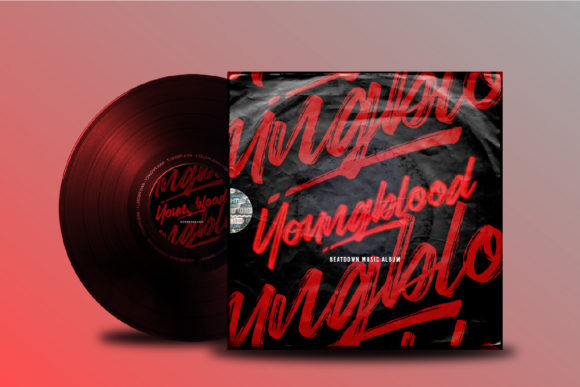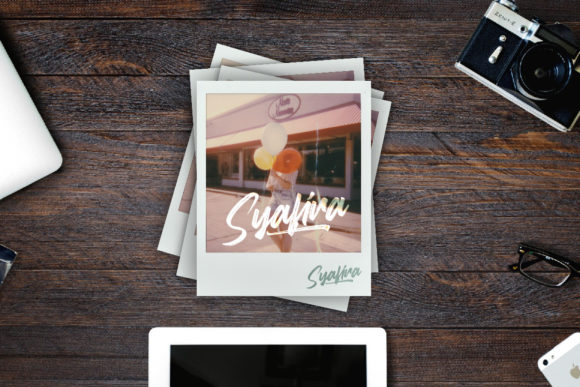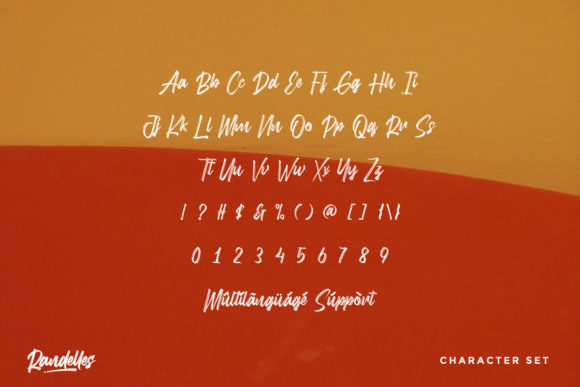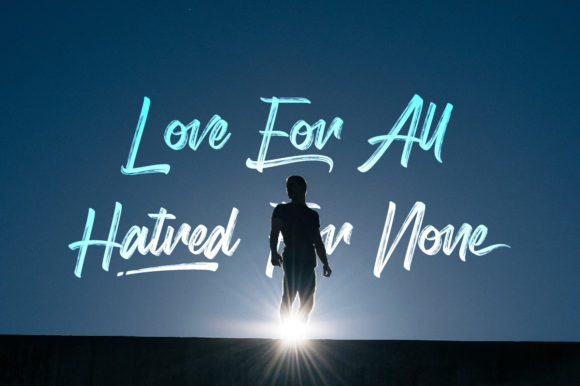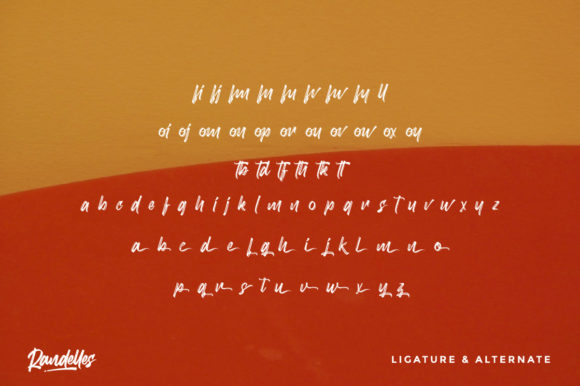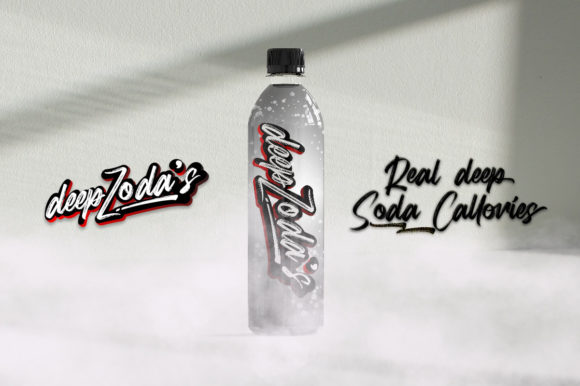
Introduction to Randelles Font
Do you remember the moment when your creative project comes together, and all the pieces fall into place? It’s a rush of excitement and satisfaction, knowing that your vision is finally taking shape. For designers, this moment is what makes all the hard work worth it. And sometimes, all it takes is the right font to elevate your design from good to great. Enter Randelles Font, a cool, urban styled, brushed display font that’s perfect for adding a touch of edginess to your next creative project.
Whether you’re a seasoned designer or just starting out, Randelles Font is a valuable addition to your design resource toolkit. With its high quality, unique design, and free download option, you can experiment with this font on a transparent background and see how it transforms your design. Its urban vibe makes it perfect for casual, informal designs that need a little extra flair.
Key Features of Randelles Font
- High-quality design resource with a unique, creative style suitable for various projects.
- Features a transparent background, making it ideal for use on images or videos with complex backgrounds.
- Designed with a high level of detail, ensuring crisp and clear rendering at resolutions up to 300 DPI.
- Includes multiple font weights and styles, allowing designers to experiment with different looks and feels.
Honest Review: Randelles Font
I recently stumbled upon the Randelles Font while searching for a unique design resource for my creative project. I must say, I was quite impressed with its high quality and versatility. ✨
Here are some of the things that work well with this font:
- Its high quality makes it perfect for professional design projects.
- The transparent background allows for seamless integration with any design.
- The font is highly customizable, making it suitable for various creative projects.
- Some users may find the font’s unique design style a bit too unconventional for their taste.
Overall, I’m quite pleased with the Randelles Font and would definitely consider using it for future design projects. Its high quality, versatility, and free download make it a valuable addition to any designer’s toolkit.
Tips for Getting the Most Out of Randelles Font
Experiment with different font sizes, colors, and combinations to achieve the desired effect. Consider using Randelles Font in conjunction with other design elements to create a cohesive look.
Randelles Font is ideal for creative projects such as:
- Typography-based art
- Print and digital media
Alternatives to Randelles Font
The Great Vibes Font is a high-quality, elegant script font perfect for creative projects that require a touch of sophistication. It’s ideal for designing wedding invitations, menus, and other design elements where a delicate, handwritten look is desired.
Compared to Randelles Font, Great Vibes Font has a more refined and polished appearance, making it suitable for formal events and high-end design projects. It’s available for free download with a transparent background, making it a great design resource for designers.
The Pacifico Font is a beautiful, modern script font ideal for designing logos, headings, and other design elements that require a clean and minimalist look. It’s perfect for creative projects such as branding, advertising, and packaging design.
Compared to Randelles Font, Pacifico Font has a more geometric and sleek appearance, making it suitable for contemporary design projects. It’s available for free download with a transparent background, making it a great design resource for designers.
Lobster Font
The Lobster Font is a fun, cursive font perfect for designing playful and creative projects such as social media graphics, posters, and advertisements. It’s ideal for designers who want to add a touch of whimsy and personality to their designs.